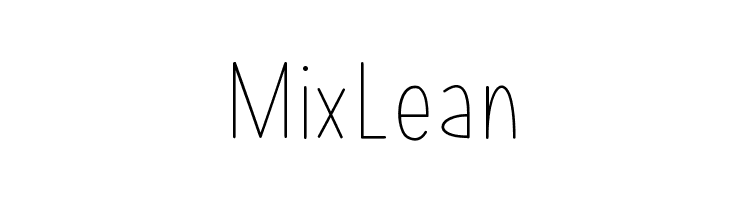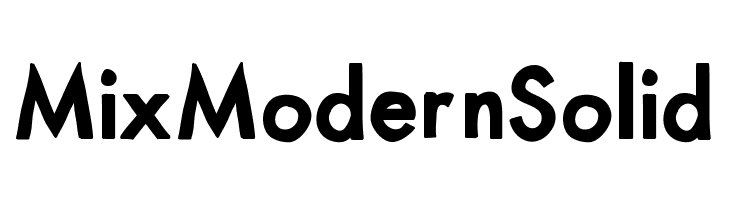
A bold, modern font with geometric shapes and consistent weight.
A playful, hand-drawn font with bold, rounded strokes and a whimsical style.
A playful, hand-drawn serif font with tall, narrow characters and whimsical serifs.
A modern, italicized font with a sleek and professional appearance.
A bold, modern sans-serif typeface with uniform strokes and excellent readability.
A sleek, italicized font with a modern and elegant style.
A modern, geometric sans-serif font with uniform character width and clear readability.
A modern, italic sans-serif font with a sleek and dynamic style.
A modern, geometric sans-serif font with clean lines and uniform strokes.
A bold, modern font with clean lines and strong visual impact.